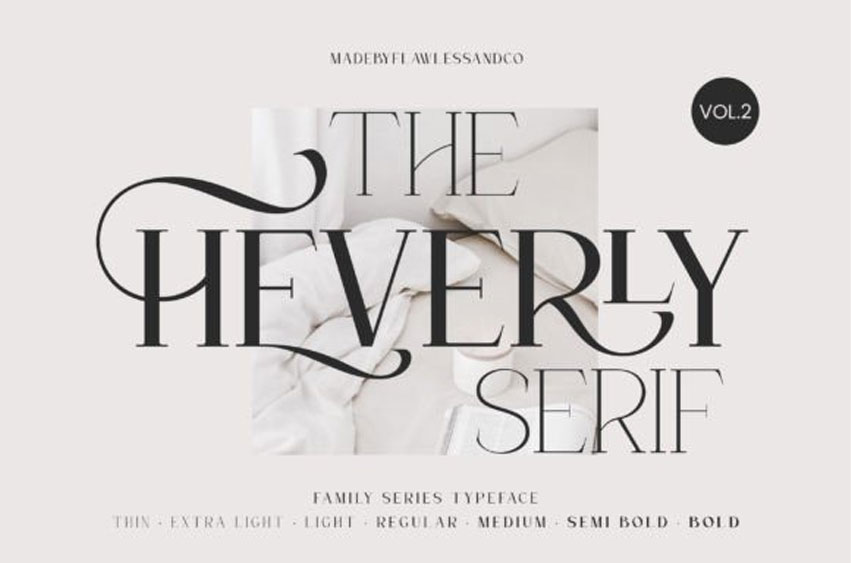
The Heverly Font
The Heverly Font Family Dive into the diverse world of typography with “The Heverly Family,” a comprehensive typeface that goes beyond conventional limits.
This font family is a symphony of styles, offering Thin, Extra Light, Light, Regular, Medium, Semi-Bold, and Bold variants, allowing you to craft designs that resonate with precision and personality.
Explore the Versatility of The Heverly Serif Family Series Font!